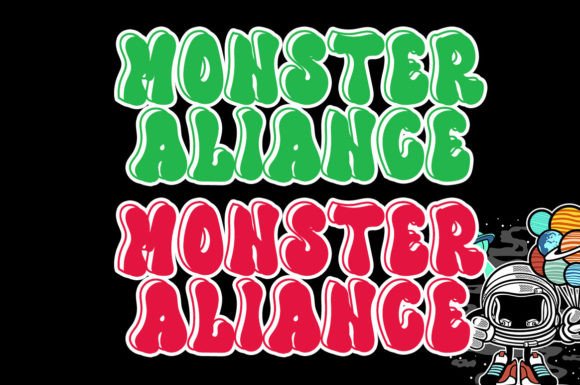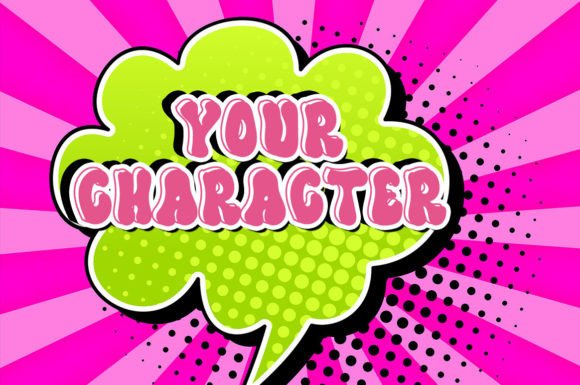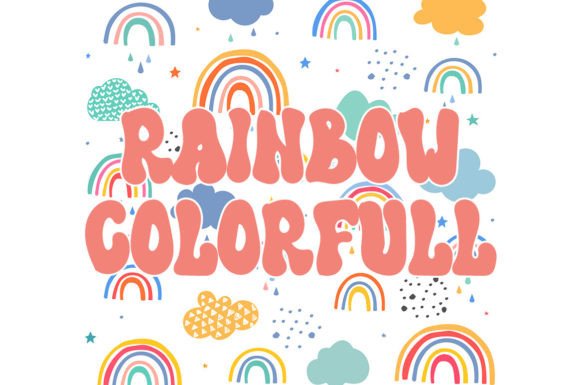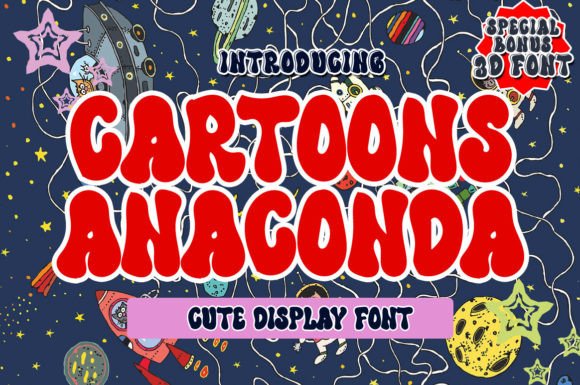
The Ultimate Guide to Cartoons Anaconda Font: Elevate Your Designs with a Bold Statement
Have you ever been in the middle of a design project, and suddenly, you’re stuck on finding the perfect font? I recall a recent experience where I was working on a branding project for a trendy new cafe, and I just couldn’t find a font that screamed “bold” and “stylish” enough. That’s when I stumbled upon the **Cartoons Anaconda** font, and let me tell you, it was love at first sight! ✨
An Honest Review of Cartoons Anaconda Font
- ✨ **Eye-catching and bold**: This font is perfect for making a statement. Its bold, all-caps design demands attention and adds a touch of playfulness to any project.
- ✅ **Unique and stylish**: Cartoons Anaconda has a distinctive personality that sets it apart from other fonts. Its features will give your project ideas a fresh and modern look.
- 💡 **Versatile**: Despite its bold nature, this font can be used for various design projects, from posters and flyers to branding and packaging.
While Cartoons Anaconda is an amazing font, there are a few things to keep in mind: ⚠️
- 🤔 **Limited use in body text**: Due to its bold nature, Cartoons Anaconda might not be the best choice for body text. It’s better suited for headings, titles, or short phrases.
- ⚠️ **Glyph limitations**: Some users have reported that the font could benefit from more glyphs, especially for non-English languages.
If you love Cartoons Anaconda but want to explore other options, here are some similar fonts or alternatives:
- Bebas Neue: A modern, bold font with a similar feel to Cartoons Anaconda. Great for headings and titles.
- Rock Salt: A fun, playful font with a similar energetic vibe. Perfect for designs that require a more casual, laid-back feel.
- Great Vibes: A stylish, script font that shares some similarities with Cartoons Anaconda’s unique personality. Ideal for designs that require a touch of elegance.
- Kingthings: A bold, all-caps font with a similar industrial feel. Great for designs that require a strong, statement-making font.
The Backstory Behind Cartoons Anaconda Font
The story behind Cartoons Anaconda’s creation is shrouded in mystery, but it’s said that the font was inspired by classic cartoons and comics from the 80s and 90s. The designer, allegedly, wanted to create a font that captured the playful, bold spirit of those iconic characters.
Q: Is Cartoons Anaconda a script font?
A: No, Cartoons Anaconda is an all-caps, bold display font. It doesn’t have a script or cursive design.